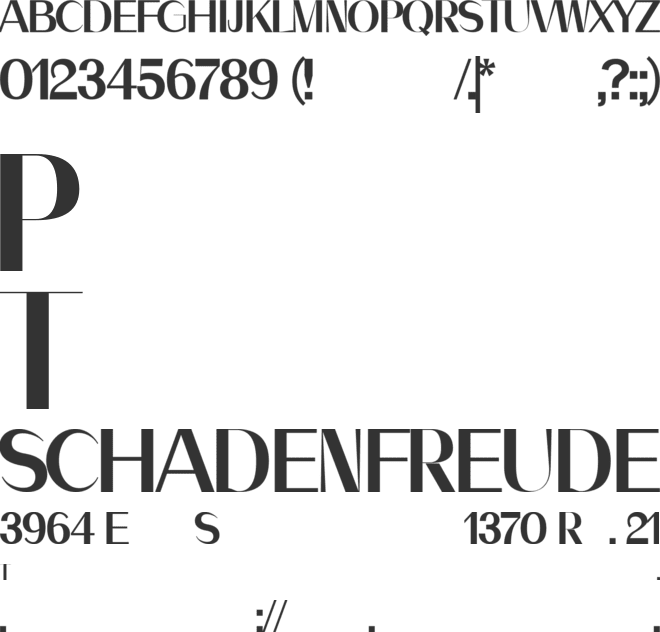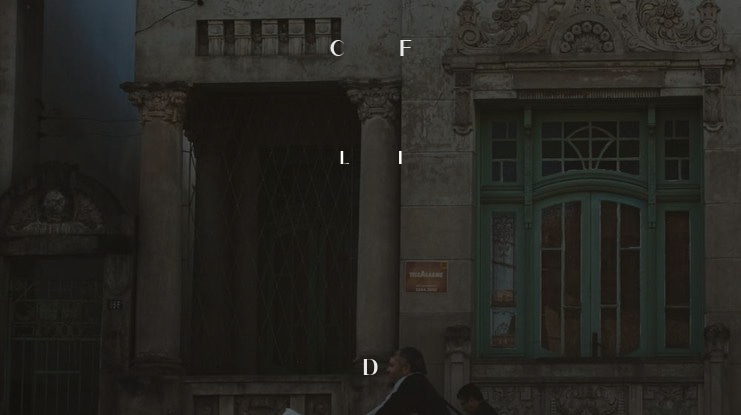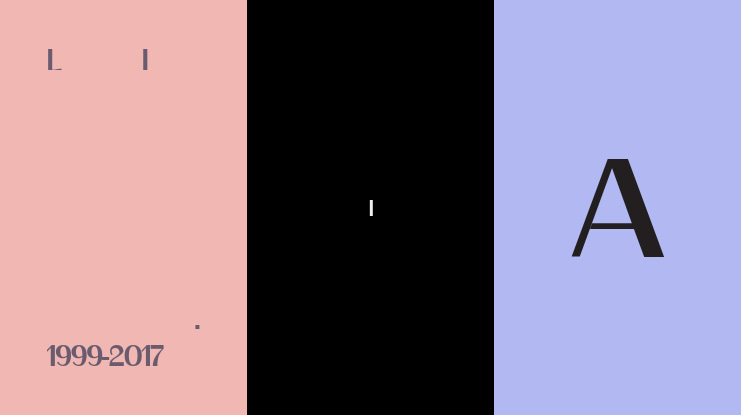
angram Font Family
🎨 Font Name: Angram by Minimalist Art Studio
🎨 Font Description: Angram is a delicate sans serif with natural grace, ideal for branding, lifestyle, and poetic editorial design.
βœ” Complete Latin set + multilingual diacritics
βœ” Alternates, stylistic sets & ligatures
βœ” Numbers, small caps, and extended punctuation
βœ” Bonus italics and family styles